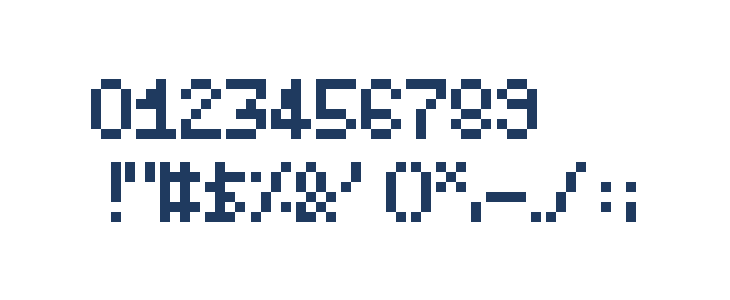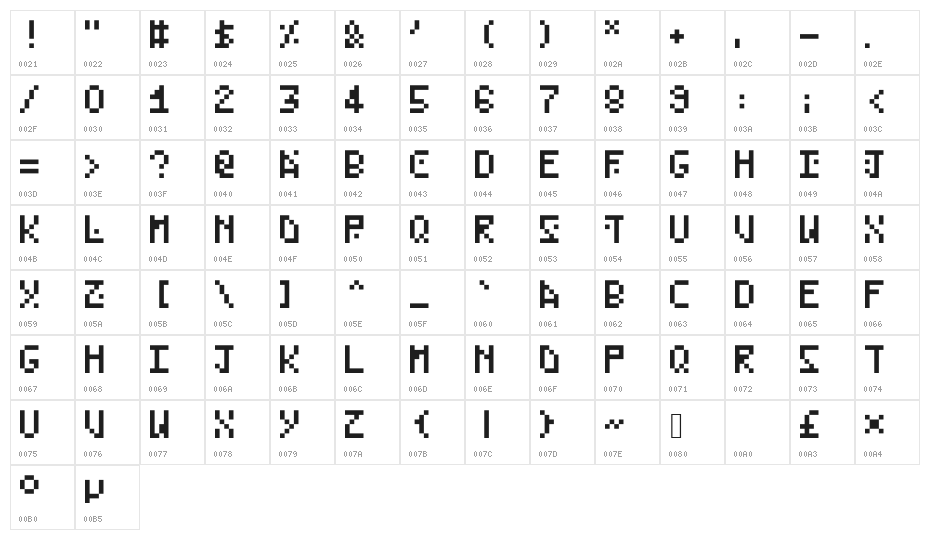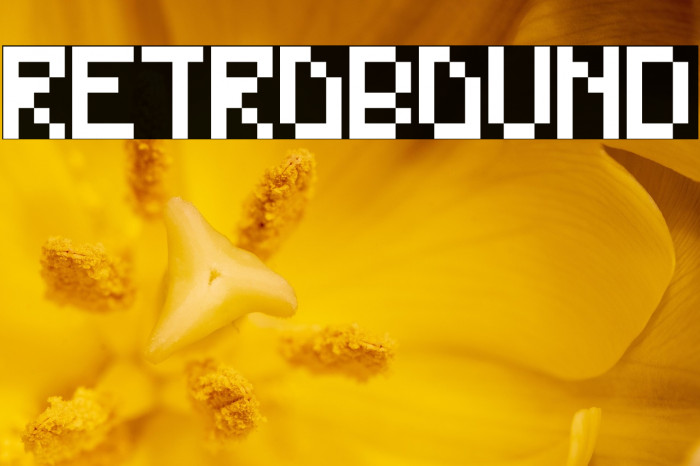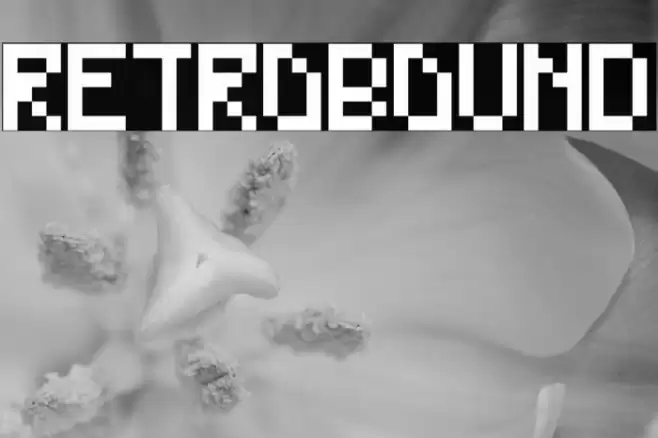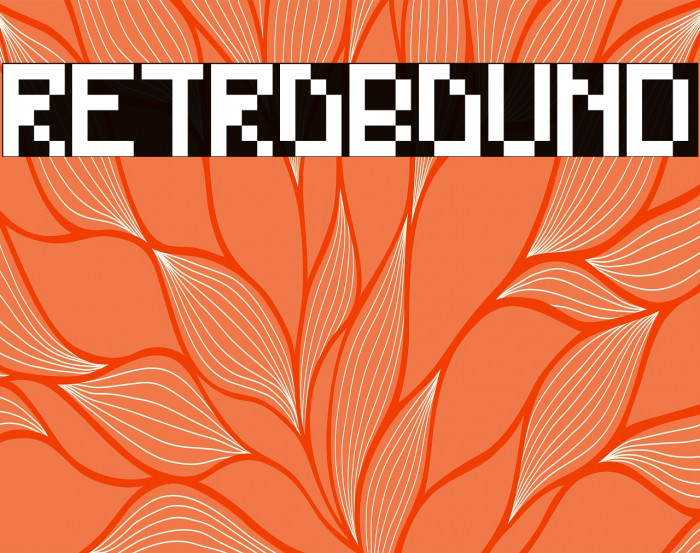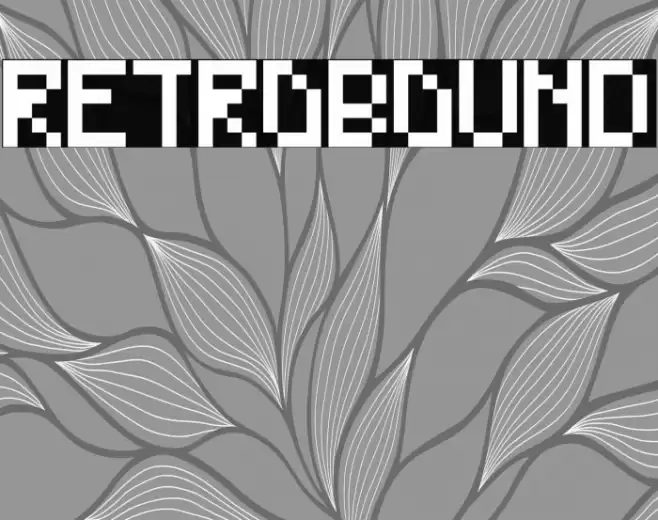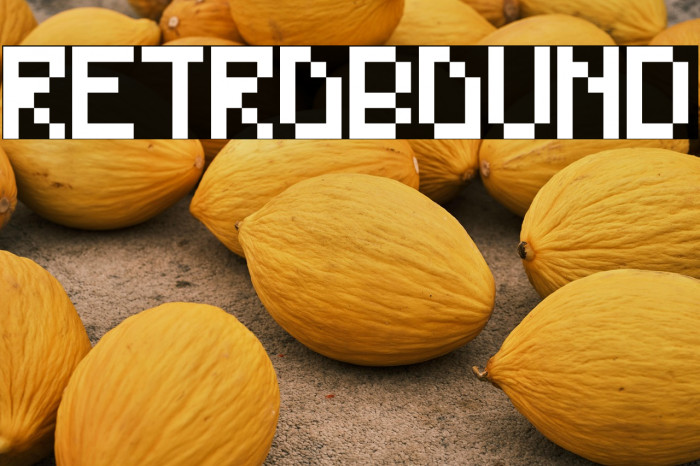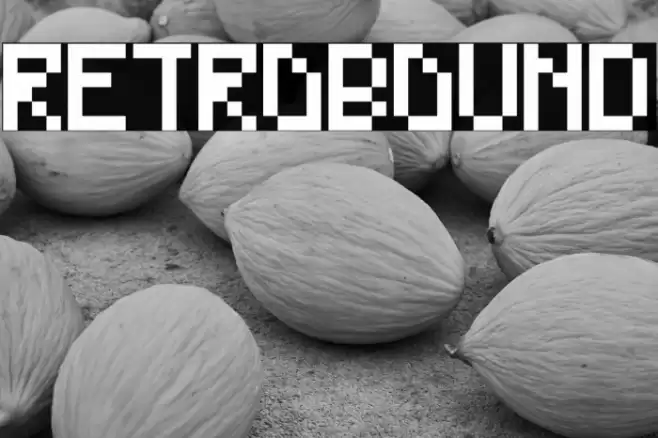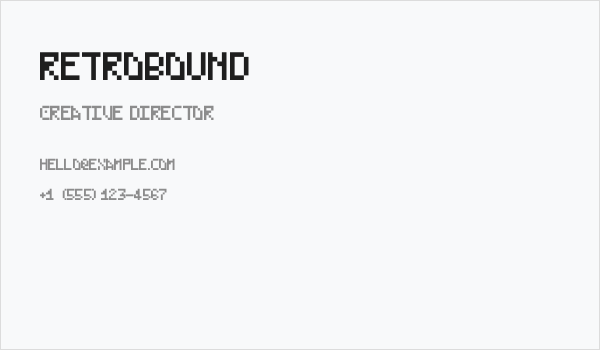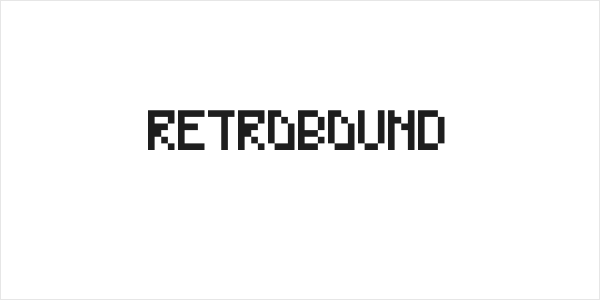
RetroBound Font
RetroBound Description
This font features a distinct pixelated style reminiscent of early digital and video game typography. Each character is composed of square blocks, creating a retro and nostalgic feel. The uppercase and lowercase letters maintain a consistent height, adding to the uniformity of the design. Numbers and special characters follow the same pixelated pattern, ensuring a cohesive look across all elements. The font's geometric structure and lack of curves give it a bold, striking appearance, ideal for capturing attention.
| Overall Style | Retro |
| Use Case | Headlines, Logos, Digital Art |
| Proposed Projects | Ideal for retro-themed designs, video game graphics, digital art projects, and nostalgic branding. |